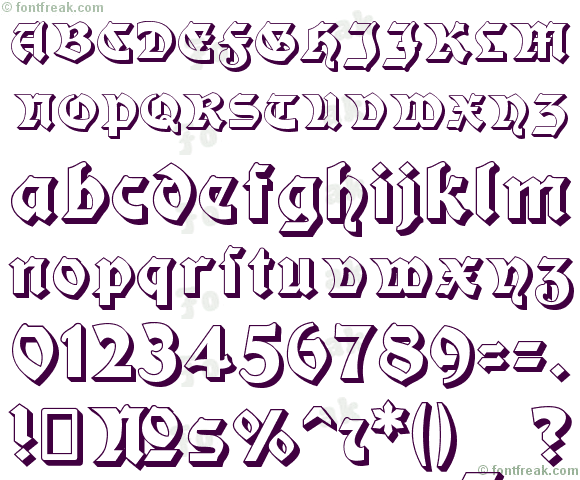
Moderne Fette Schwabacher
Moderne 3D Schwabacher
Moderne Fette Schwabacher is a striking display font designed by Peter Wiegel, characterized by its distinct serif style. This font features bold, thick strokes that convey a sense of strength and presence, making it an ideal choice for various design applications. The contrast between the heavy strokes and elegant curves adds a unique visual flair, while the carefully crafted spacing ensures legibility even at larger sizes. The decorative elements, including pointed serifs and a slightly gothic influence, give it a classic yet contemporary appeal.
This font is particularly well-suited for a range of creative projects. Wedding invitations can benefit from its elegant aesthetic, providing a touch of sophistication. Movie posters and theatrical promotions will find a perfect match in Moderne Fette Schwabacher, as its boldness captures attention and evokes drama. Restaurant menus can also leverage this font's stylish design, making dishes stand out with a distinctly upscale feel. Additionally, small business branding can make use of this font to create a memorable identity that resonates with customers.
What sets Moderne Fette Schwabacher apart is its combination of traditional German type design with a modern twist, allowing it to stand out in a crowded font landscape. Whether used for print or digital media, this font brings a unique character that elevates any design, making it a valuable addition to any typographer's toolkit.